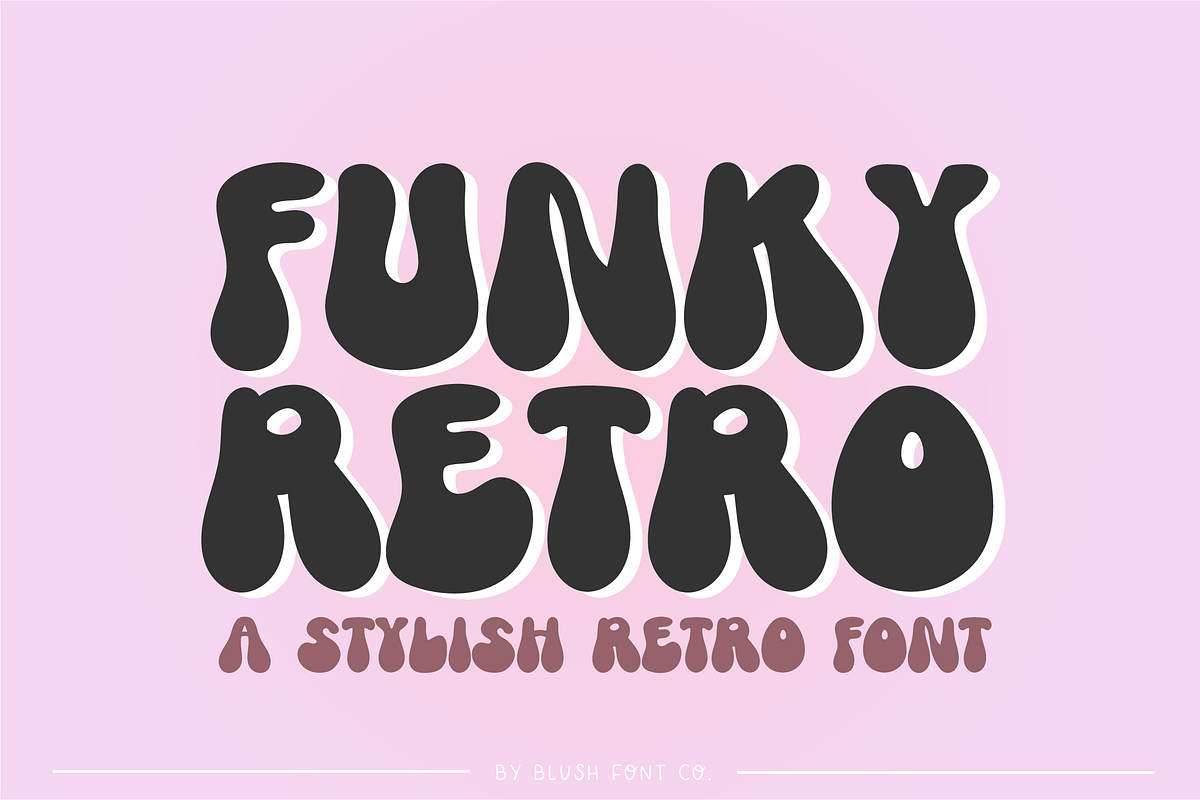
You must purchase this font for commercial use. However, you can download FUNKY RETRO Boho Bubble Font Free Download for testing purposes. Funky Retro is a bold and vibrant bubble font with a playful, boho-inspired aesthetic. Perfect for creating eye-catching logos, posters, social media graphics, packaging, and designs that require a retro, fun touch, this font brings a lively, cheerful vibe to your projects.
The rounded, bubble-like shapes of FUNKY RETRO give it a nostalgic yet modern appeal, making it ideal for projects that want to evoke the carefree spirit of the past with a contemporary flair. Whether you're designing for a boho brand, a funky event, or adding personality to a project, this font will make your typography stand out in style.